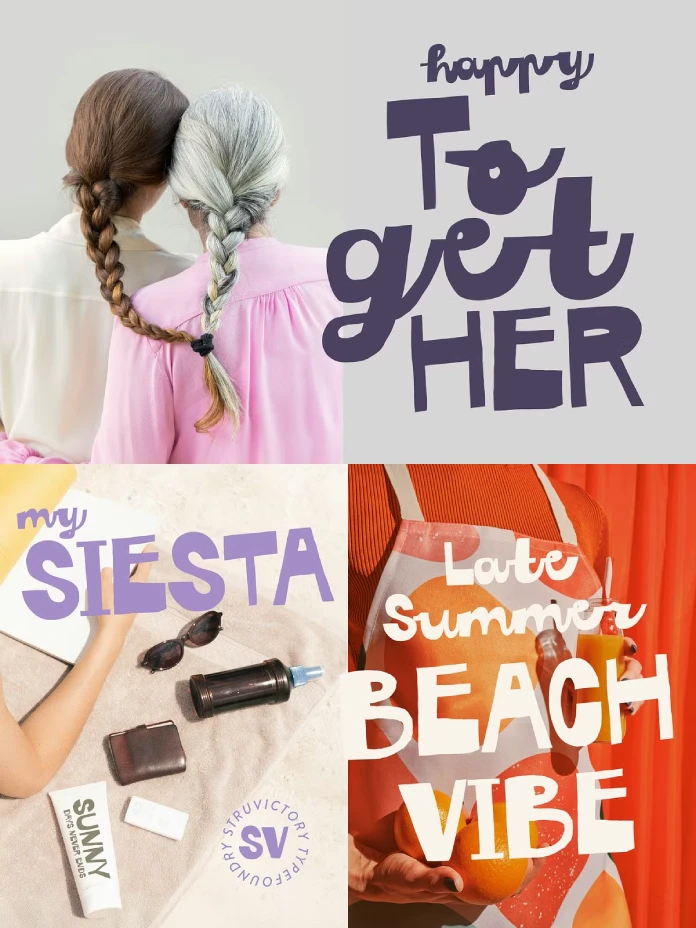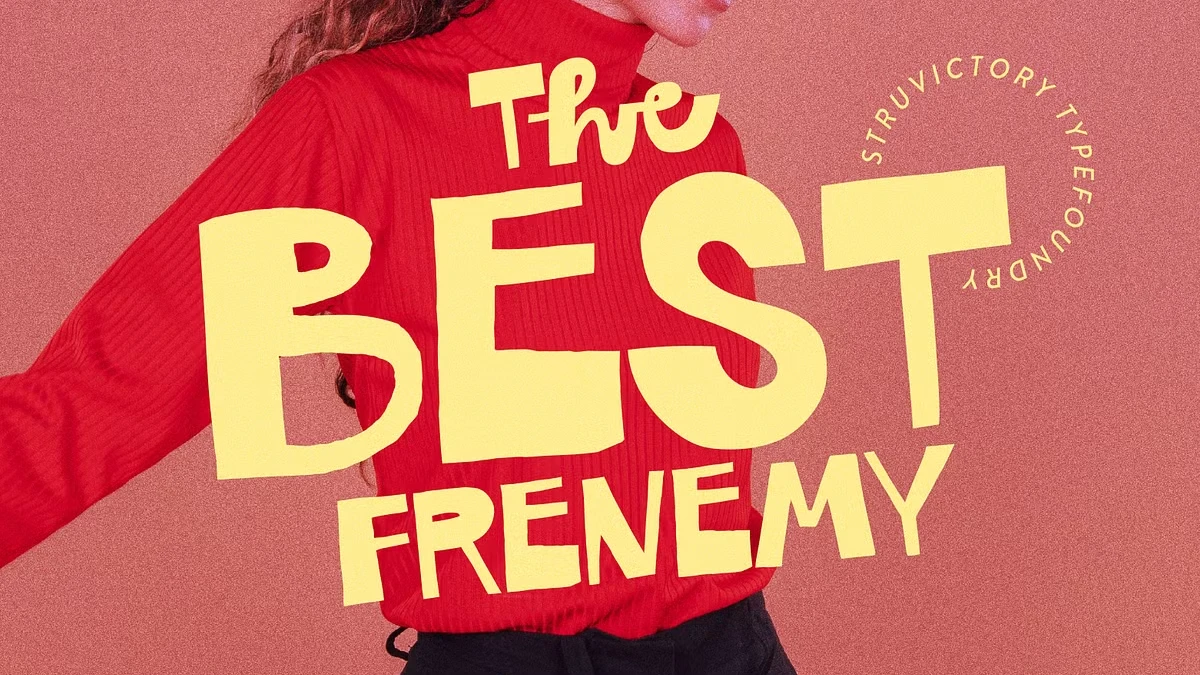
Say Hello to the Best Frenemy Font, the Playful Vibe Script Typeface.
Typography has become a primary means of conveying brand personality. A font is no longer just a tool for readability; it is a declaration of identity. The Best Frenemy font, a dynamic creation by the Struvictory.art foundry, perfectly captures this modern demand for expressive and memorable type. This font isn’t merely a set of characters; it is a conversation between two distinct styles, offering designers a powerful tool for creating work that feels both bold and deeply personal. It masterfully pairs a handwritten sans serif with a lively script, reflecting a duality that is exceptionally relevant today.
The Anatomy of a Perfect Mismatch: Deconstructing the Best Frenemy Font
The core concept of the Best Frenemy font lies in its brilliant internal contrast. This is not a single, monotonous style but a deliberate and playful pairing of two complementary personalities. This built-in duality is what makes it such a versatile and compelling choice for contemporary design projects.
The All-Caps Sans Serif: Boldly Expressive
The uppercase letters of the Best Frenemy font are rendered in a thick, handwritten sans serif style. Consequently, each character feels as if it were cut out by hand, giving it an informal, artsy, and approachable quality. This style delivers messages with confidence and a commanding presence, making it ideal for headlines and key statements that need to grab attention instantly. Its bold energy ensures that any word it spells is not just read, but felt. This makes it a powerful asset for impactful visual communication.
The Script Lowercase: A Touch of Flow
In direct contrast, the lowercase letters flow in a lively, energetic script. This “playful vibe script” adds a human touch, softening the boldness of the uppercase letters with its fluid, connected strokes. Furthermore, it introduces a sense of motion and spontaneity, preventing the overall design from feeling static or overly aggressive. The script’s personality is fun and youthful, perfectly suited for adding a casual, handwritten feel to any project.
Why the Best Frenemy Font Captures the Current Vibe
Certain fonts seem to arrive at the perfect moment, encapsulating the aesthetic of an era. The Best Frenemy font is one such typeface, resonating strongly with some of today’s most dominant design trends. Its unique character allows it to speak the language of a new generation of consumers and creators.
Tapping into the Gen Z and Y2K Zeitgeist
The resurgence of Y2K aesthetics and the rise of Gen Z’s expressive visual culture have created a demand for fonts that are anything but neutral. This generation favors designs that are bold, authentic, and full of personality. The Best Frenemy font fits this brief perfectly. Its retro, slightly chaotic energy aligns with the nostalgic yet forward-looking Y2K trend. The font feels both familiar and fresh, making it an ideal choice for creating Y2K-inspired graphics that connect with a younger audience.
The Genius of Built-in Contrast
Effective font pairing is a fundamental skill in graphic design, but it can be challenging to get right. Struvictory.art cleverly solves this by offering a pre-packaged, perfectly balanced duo. The contrast between the chunky, solid uppercase and the nimble lowercase script creates immediate visual hierarchy and interest. This tension makes designs more dynamic and memorable, helping them stand out in a crowded digital space.
Putting the Best Frenemy Font to Work: Practical Inspiration
The true test of a font is its applicability. The Best Frenemy font excels in a wide range of creative contexts, from digital branding to physical merchandise, offering designers a versatile toolkit for expression.
Creating Unforgettable Branding
For businesses aiming to cultivate a brand identity that is fun, modern, and approachable, this font is an exceptional asset. Its dual nature allows for a flexible branding system. For example, a logo could use the bold uppercase for the brand name, while taglines or descriptive text could use the lowercase script. This font is perfect for trendy branding in sectors like fashion, food and beverage, and creative studios. It is also excellent for merchandise such as t-shirts, stickers, and journals.
Dominating Social Media Feeds
In the fast-paced world of social media, stopping the scroll is paramount. The bold and eye-catching nature of the Best Frenemy font makes it a powerful tool for creating engaging content. It is an excellent font for social media carousels on Instagram, video captions on TikTok, and attention-grabbing headlines for Facebook posts. Its playful character helps convey a friendly and relatable brand voice, boosting engagement and making content more shareable.
A Personal Take: Is This the Future of Expressive Type?
As a design critic, I find that fonts like Best Frenemy represent an exciting evolution in typography. They move beyond simple utility to become active participants in storytelling. The font’s built-in personality doesn’t just present a message; it infuses it with a specific mood and energy. This allows designers to communicate on a more emotional level. How could a font with this much inherent character change the way you approach your own creative projects?
Behind the Glyphs: Struvictory.art and Technical Details
The Best Frenemy font was designed by Struvictory.art, a creative foundry known for creating unique and characterful fonts. The Best Frenemy Script is designed to be accessible and functional, offering support for the most popular Latin-based languages, ensuring its usability across a wide range of international projects.